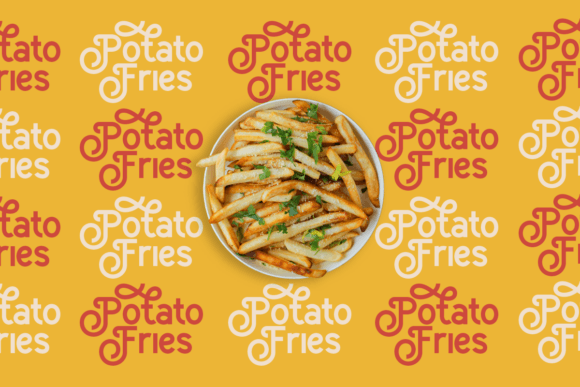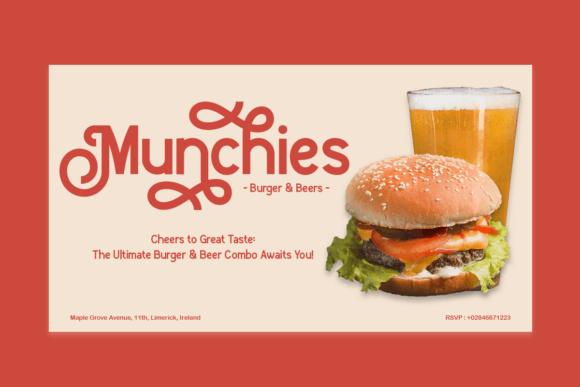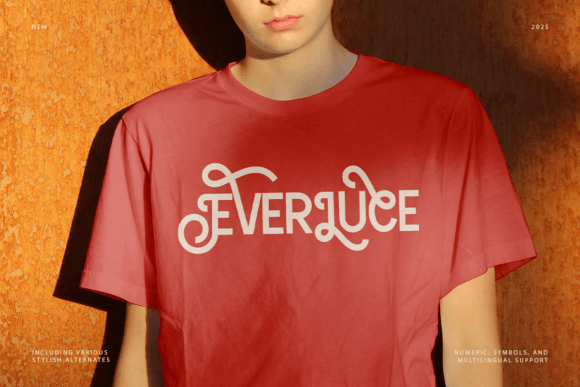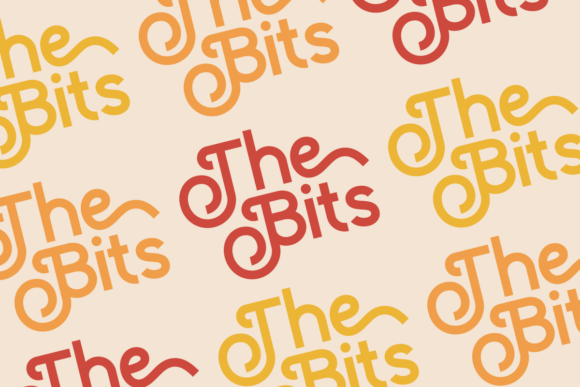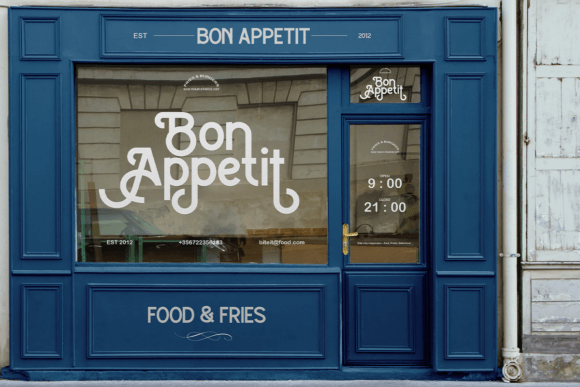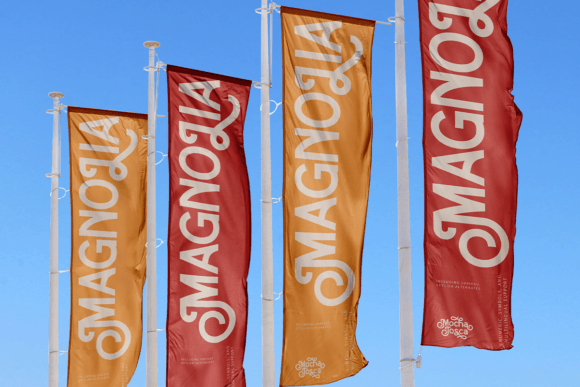
Introduction to Mocha Tosca Font
Remember the thrill of brainstorming ideas for a new creative project? The excitement of bringing a concept to life, and the satisfaction of seeing it take shape? For designers, moments like these are what make our work so rewarding.
One of the most crucial elements in any design project is the font. A well-chosen font can elevate a message, add personality to a brand, and even evoke emotions. In this article, we’ll be shining the spotlight on the Mocha Tosca Font – a high-quality, decorative monoline typeface that’s perfect for a wide range of creative applications.
With its stylish alternatives and Open Type features, the Mocha Tosca Font is an invaluable resource for designers looking to add a touch of sophistication to their work. Whether you’re working on a product logo, poster, or magazine layout, this font is sure to impress.
Key Features of Mocha Tosca Font
- Resolution-independent design ensures that the font remains crisp and clear at any resolution, from low to high DPI.
- Unique characteristics include a sophisticated and modern aesthetic, making it perfect for branding, advertising, and editorial projects.
- Easy to use and customize, making it an excellent choice for designers working on creative projects.
Honest Review: Mocha Tosca Font
I recently had the opportunity to work with the Mocha Tosca Font, and I must say it’s been a game-changer for my design projects. This font is a high-quality design resource that offers a unique and elegant touch to any creative project.
One of the things I love about Mocha Tosca Font is its versatility. It can be used for a wide range of applications, from web design to print materials, and it always looks great. The font is available for free download, which is a huge plus in my book.
- ✨ Unique and elegant design
- ✨ High-quality and crisp lines
- ✨ Versatile and suitable for various applications
- ⚠️ Not ideal for small text sizes
- ⚠️ May not be suitable for highly complex designs
Overall, I’m really impressed with the Mocha Tosca Font. It’s a fantastic design resource that can add a professional touch to any creative project. With its transparent background and high-quality design, it’s a great choice for anyone looking to elevate their design game.
The Mocha Tosca Font is commonly used for:
- Logo designs
- Advertising materials